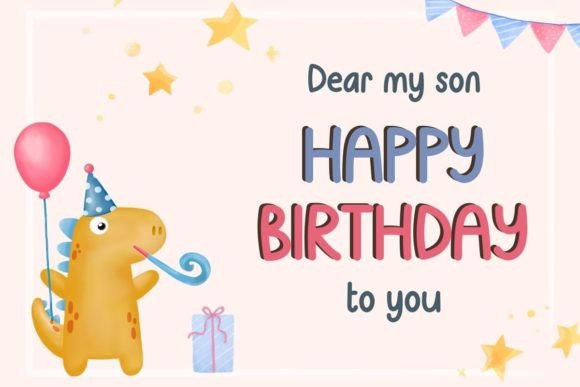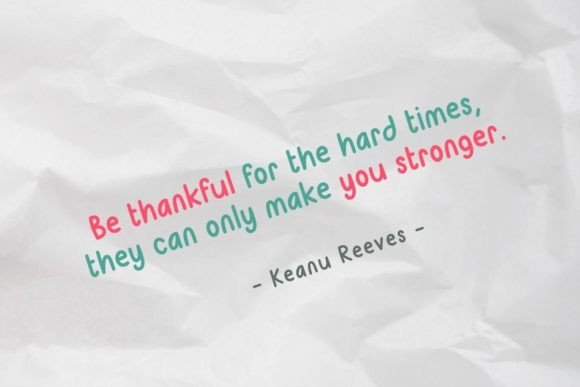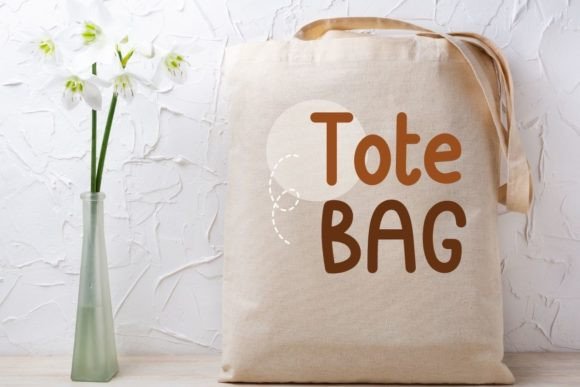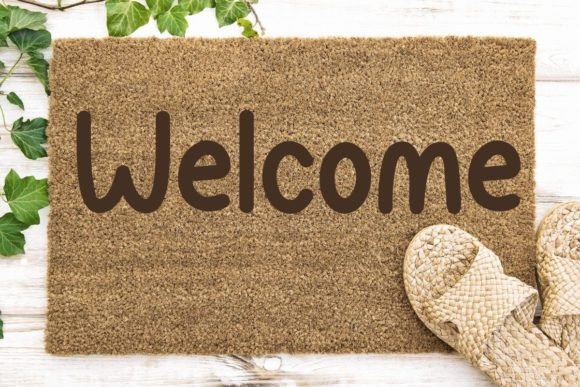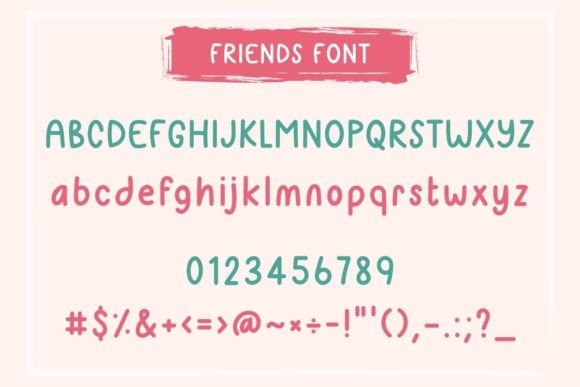
The Ultimate Guide to Friends Font: Adding a Pop of Fun to Your Designs
I’ll never forget the time I was working on a project for a client who wanted a fun and playful design for their kids’ party invitations. I had spent hours browsing through font libraries, but nothing seemed quite right. That was when I stumbled upon the Friends Font, and it instantly brought a smile to my face. In this article, I’ll share my experience with this lovely, colorful handwritten font and show you how to make the most of it in your designs.
An Honest Review of Friends Font
So, what makes Friends Font so special? Here are some things I love about it:
- ✨ Colorful and playful: Friends Font is perfect for designs that need a pop of fun and personality.
- ✅ Highly versatile: It can be used for a wide range of projects, from banners and social media posts to mugs and stationery.
- 💕 Easy to read: Despite its playful nature, Friends Font is surprisingly easy to read, even in smaller sizes.
Of course, no font is perfect, and Friends Font has a few quirks:
- 🤔 Limited formal use: Due to its playful nature, Friends Font may not be the best choice for formal or professional designs.
- ⚠️ Some letters may require adjustment: Depending on the word or phrase, some letters may need to be adjusted to ensure proper spacing and alignment.
- Take advantage of glyphs and stylistic alternates to create unique and eye-catching designs.
The Story Behind Friends Font
Friends Font was created with the intention of bringing a smile to designers’ faces. The font’s creator wanted to design a font that would be perfect for fun and playful designs, without sacrificing readability. And so, Friends Font was born – a colorful, handwritten font that’s perfect for a wide range of creative projects.
| Font Name | Friends Font |
| Author | AnningArts |
| What type of designs is Friends Font best suited for? | Friends Font is perfect for designs that need a playful and fun touch, such as party invitations, social media posts, and kids’ content. |
| Is Friends Font easy to read? | Yes, despite its playful nature, Friends Font is surprisingly easy to read, even in smaller sizes. |